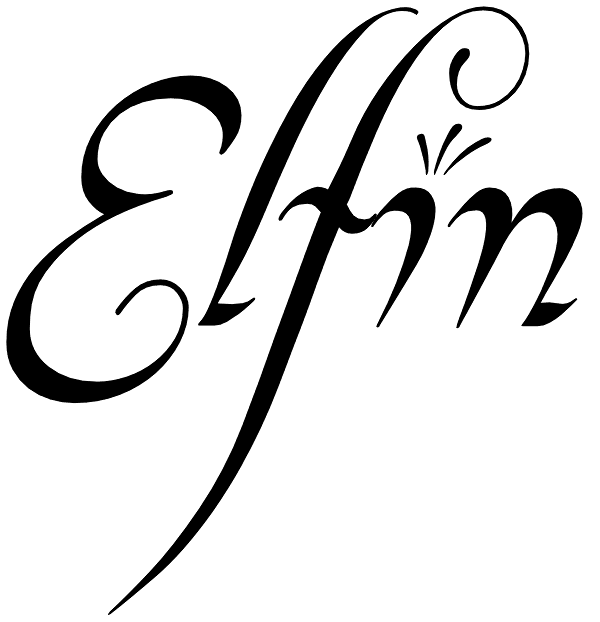
Elfin
A fanciful reinterpretation of the elvish type found inside the ring in J. R. Tolkien's "Lord of the Rings". Elfin has a very small x height with large ascenders and descenders. Unlike most scripts, Elfin characters connect from the x height, not...